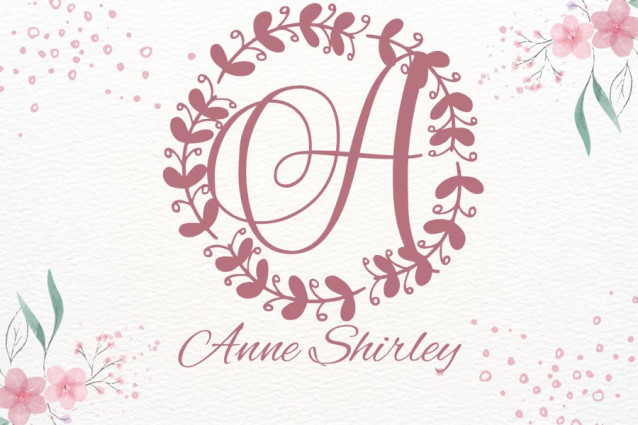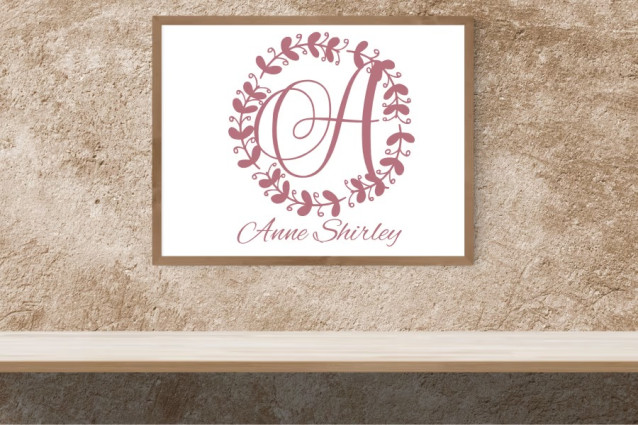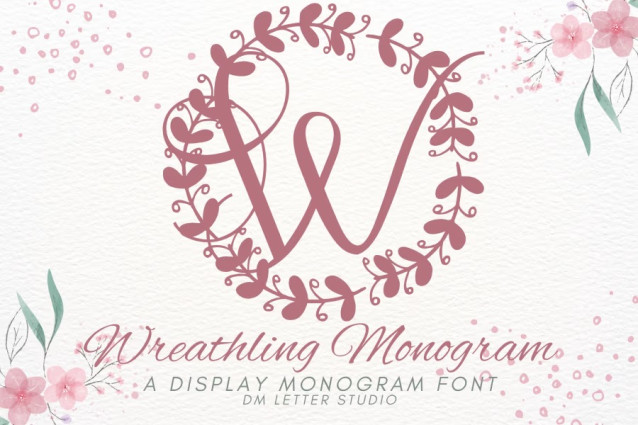
Wreathling Monogram Font
Wreathling Monogram Font is a charming and elegant monogram font where each uppercase letter is encircled by a hand-drawn botanical wreath. Designed to combine timeless monogram styling with natural detail, this font is perfect for wedding invitations, boutique branding, seasonal packaging, and personalized crafts. With its balanced design and leafy accents, Wreathling brings a graceful, organic look to any project.